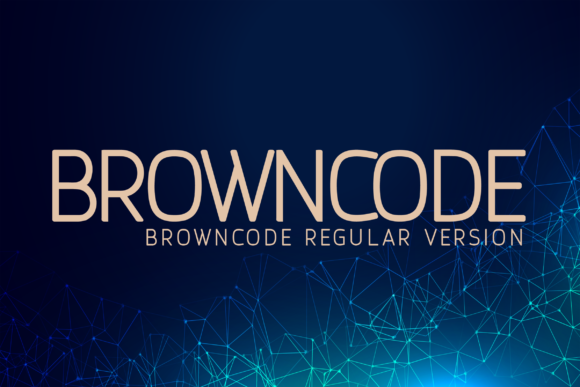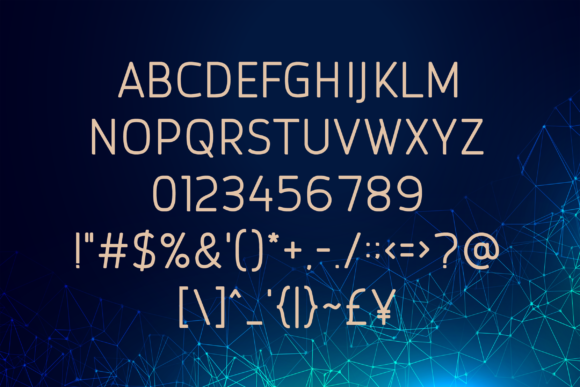
Browncode is a wonderfully stylish and elegant sans serif font with perfectly balanced letters. Use it to deliver any message with clarity, style, and absolute readability!